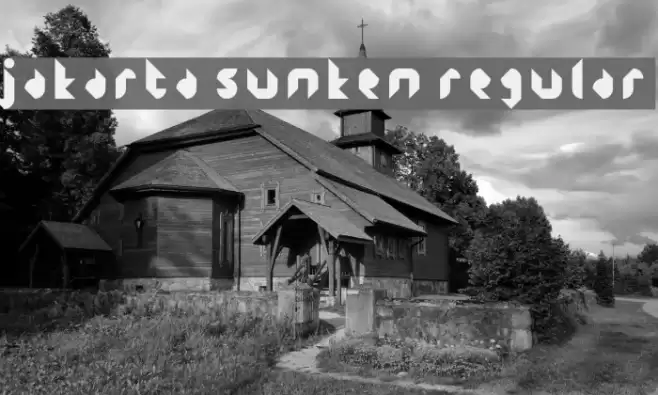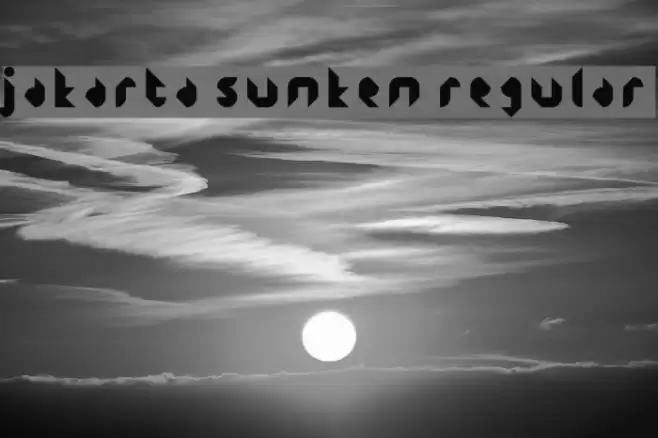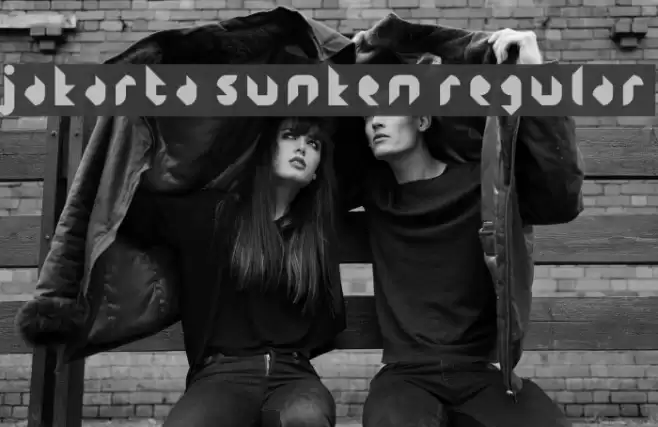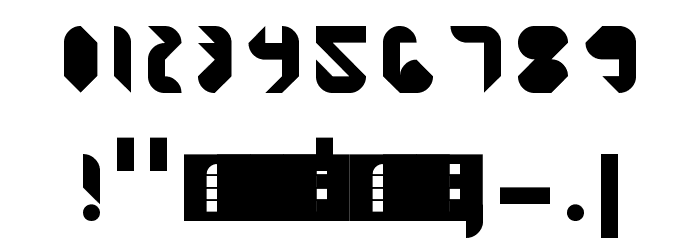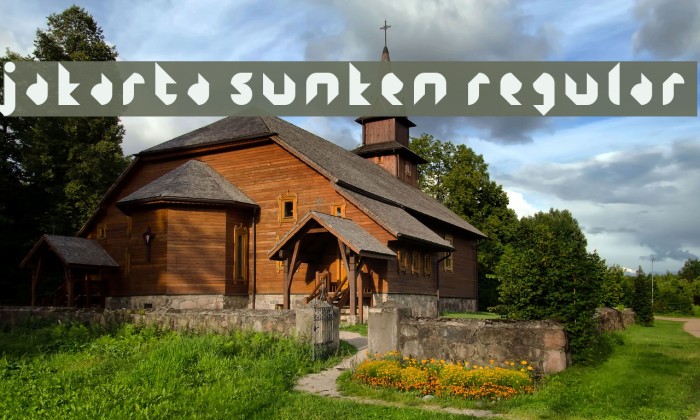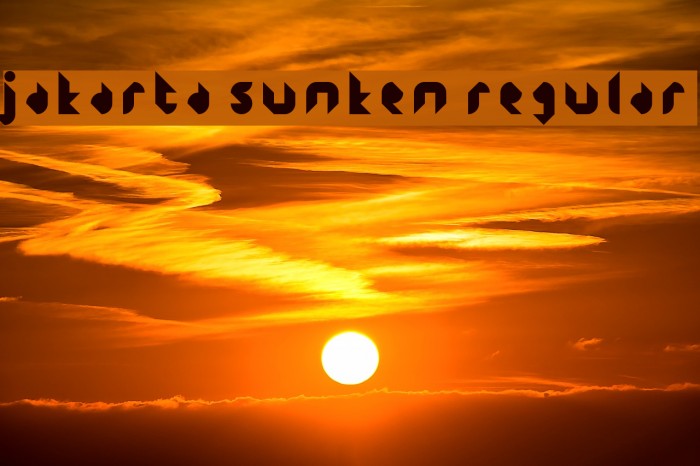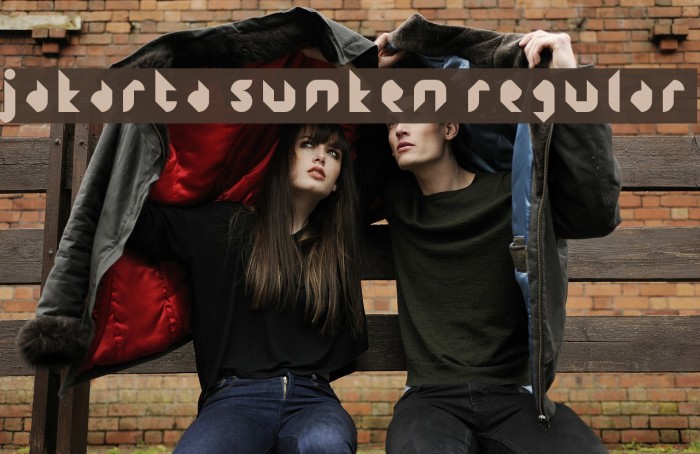
Jakarta Sunken Regular Font
Jakarta Sunken Regular Description
This font features a bold and geometric design, characterized by sharp angles and a futuristic aesthetic. The letters are constructed with a combination of straight lines and pointed edges, giving it a distinct, modern look. The uppercase and lowercase letters maintain a consistent style, with a unique approach to traditional letterforms. The numerals and special characters follow the same angular theme, ensuring a cohesive visual appearance across all characters. This font's striking design makes it suitable for projects that require a strong visual impact.
A bold, geometric font with sharp angles and a futuristic style from Uncategorized fonts.
- Proposed Projects: Ideal for branding, posters, album covers, and any project needing a modern, edgy look.